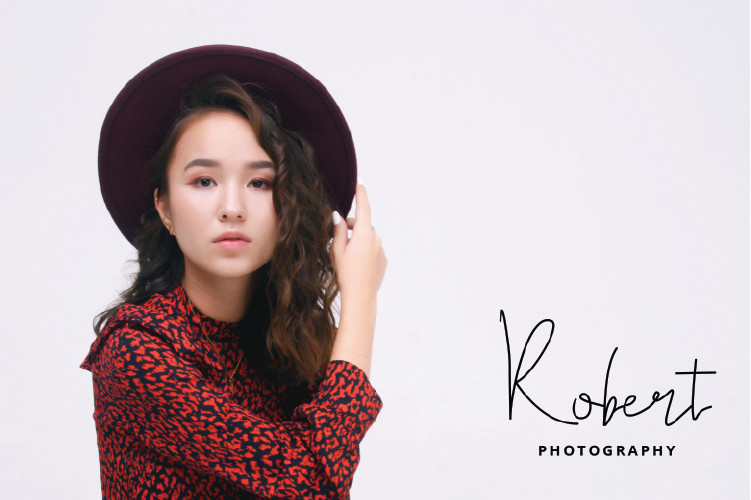
Himeka Script Font
himeka very suitable for logos. for beauty products for flyers, brochures, magazines, or also for branding. This font is 2 styles. so you can choose which fonts you install.